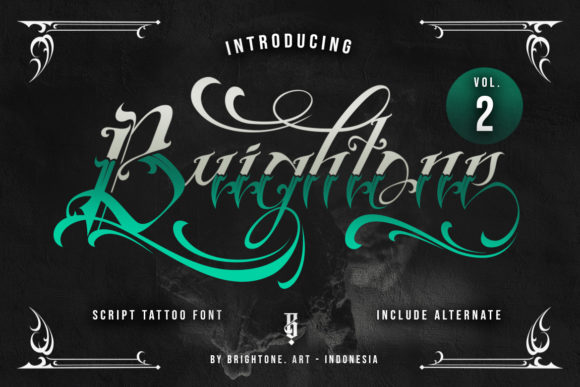
Introducing Brightone Font - The Bold and Assertive Blackletter Masterpiece!
Get ready to make a statement with Brightone Font, the ultimate blackletter typeface that exudes boldness and distinction. Whether you're a designer, a brand owner, or a creative enthusiast, Brightone is your perfect companion for crafting designs that demand attention.
Immerse yourself in the world of labels, branding, tattoo designs, and more, where Brightone shines as the leading choice. Its assertive nature adds a touch of uniqueness to every project, ensuring that your creations stand out from the crowd.
Explore the endless possibilities of Brightone Font, meticulously crafted to deliver a visual impact that captivates and engages. With its PUA encoding, accessing all the glyphs and swashes is a breeze, empowering you with limitless creative freedom.
Unlock the power of Brightone Font today and elevate your designs to new heights. Embrace the boldness, embrace the distinction, and let Brightone lead you on a journey of creative expression like never before.